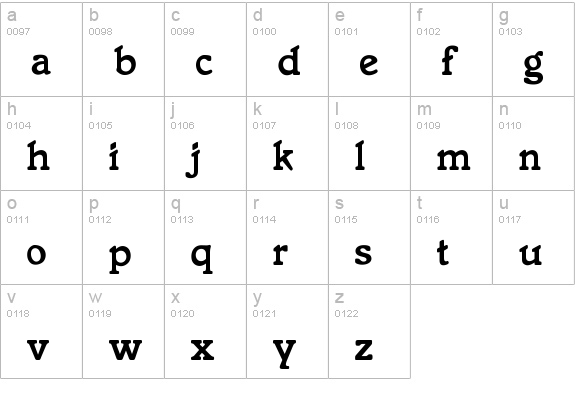
Verdun Font Details
Verdun font is a stunning typeface that embodies elegance and sophistication. Its sleek and modern design captures attention and adds a touch of class to any project. With its clean lines and balanced proportions, Verdun font is perfect for both print and digital mediums. What sets Verdun font apart is not only its visual appeal but also its accessibility. This incredible font is available for free, allowing designers, creatives, and enthusiasts alike to access its beauty without any constraints. Whether you're working on a personal project or a professional endeavor, Verdun font is the perfect choice to elevate your designs. Downloading Verdun font is a breeze. Simply visit FontsMarket.com, a leading platform for font enthusiasts, and find this gem among the vast collection of fonts available. With just a few clicks, you can have Verdun font in your possession, ready to be used in various projects. The versatility of Verdun font is another reason why it has become a favorite among designers. It seamlessly blends with different styles and aesthetics, effortlessly adapting to any design vision. From logos and branding materials to websites and social media graphics, Verdun font adds a touch of sophistication and refinement to every project. The attention to detail in Verdun font is truly remarkable. Each character is meticulously crafted, ensuring a harmonious and visually pleasing overall appearance. The smooth curves and precise angles create a sense of balance and harmony, making Verdun font a pleasure to work with. Whether you're a seasoned designer or just starting your creative journey, Verdun font is a must-have in your font library. Its timeless elegance, combined with its accessibility, makes it a standout choice for any project. Download Verdun font for free at FontsMarket.com and unlock a world of possibilities for your designs.